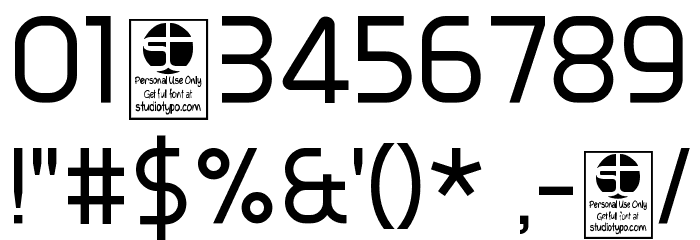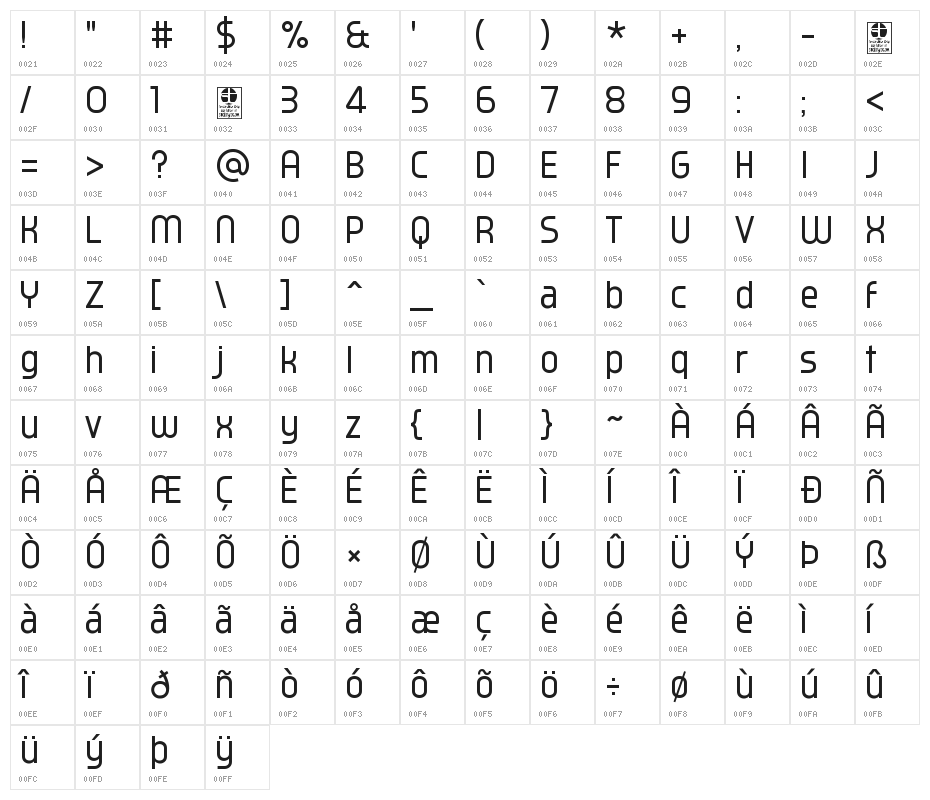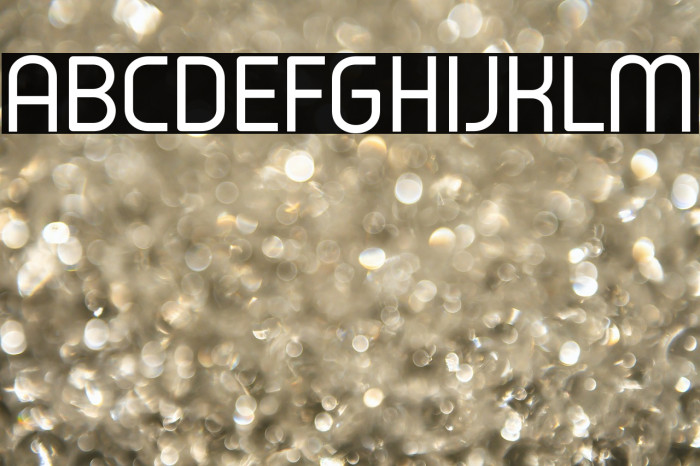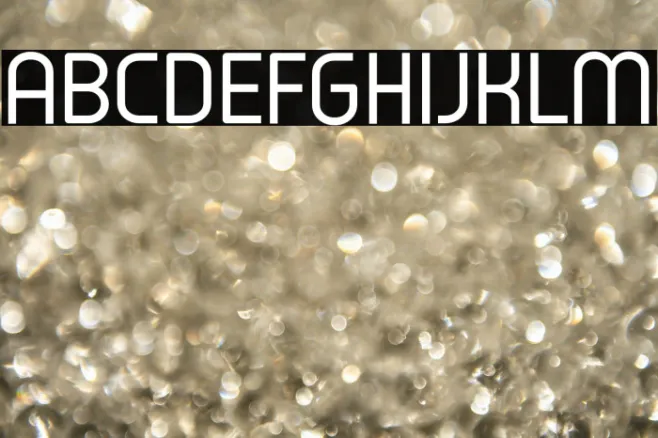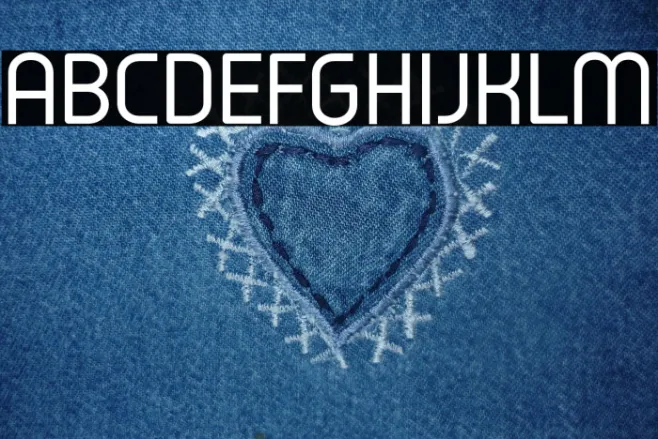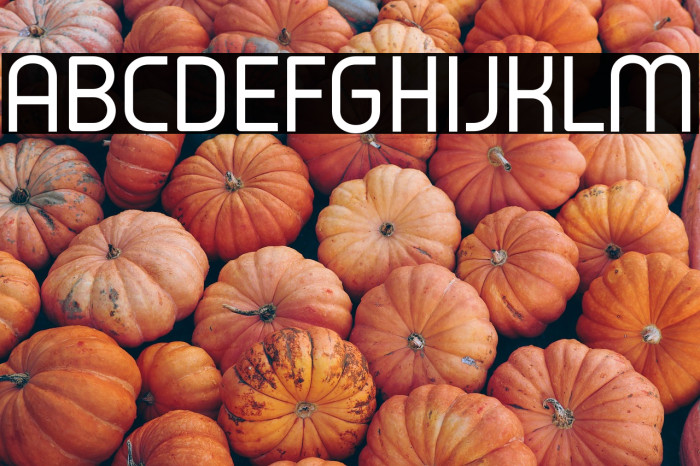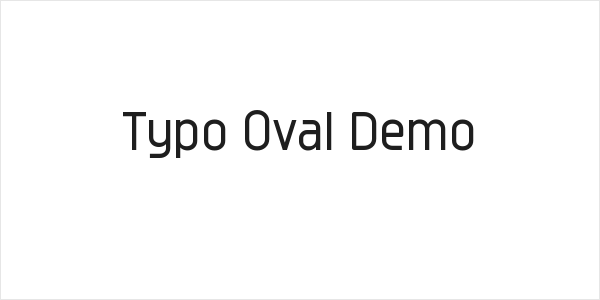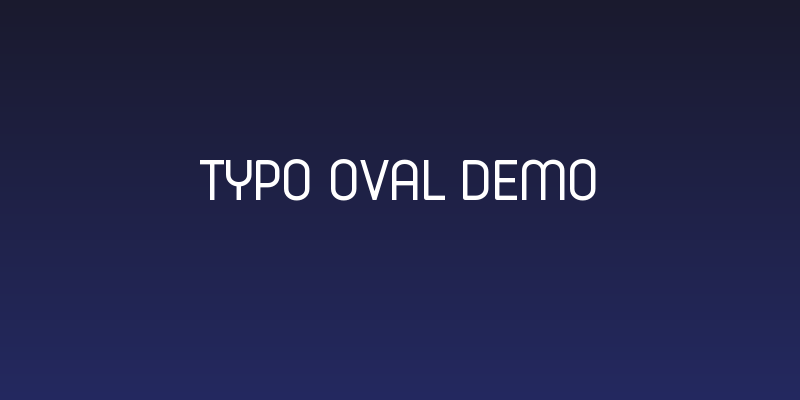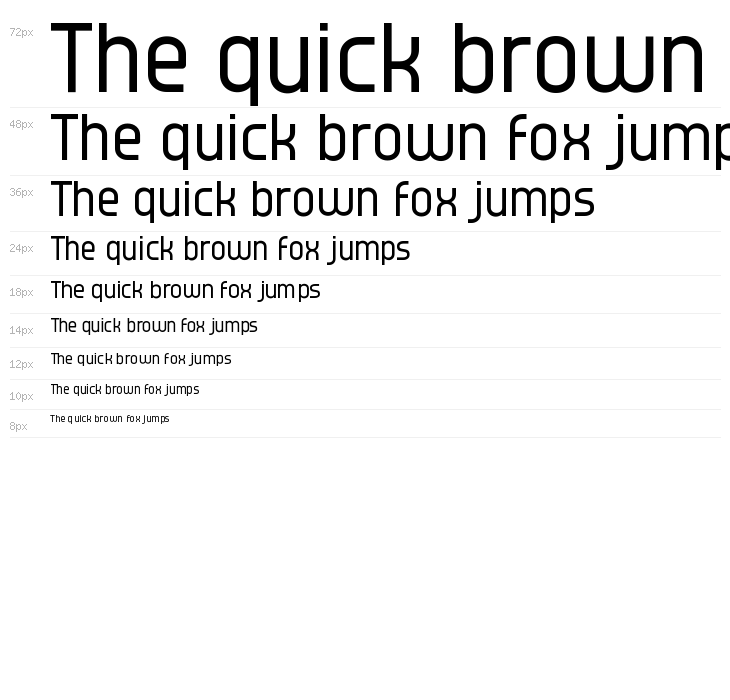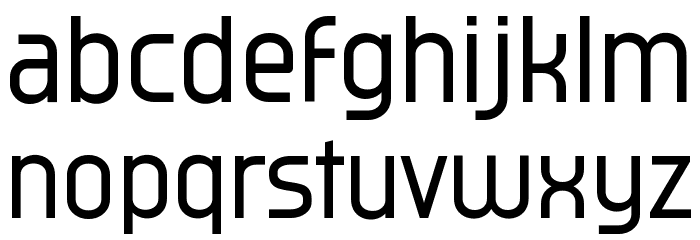
Typo Oval Demo Font
Typo Oval Demo Description
This font features a clean and modern design with rounded edges, giving it a friendly and approachable appearance. The characters are evenly spaced, with a consistent stroke width that maintains readability across various sizes. The uppercase letters are slightly taller than the lowercase, providing a balanced look. The numerals are clear and distinct, making them suitable for both text and display purposes. Special characters are well-integrated, maintaining the overall aesthetic of the font. Its simplicity and clarity make it versatile for a range of applications.